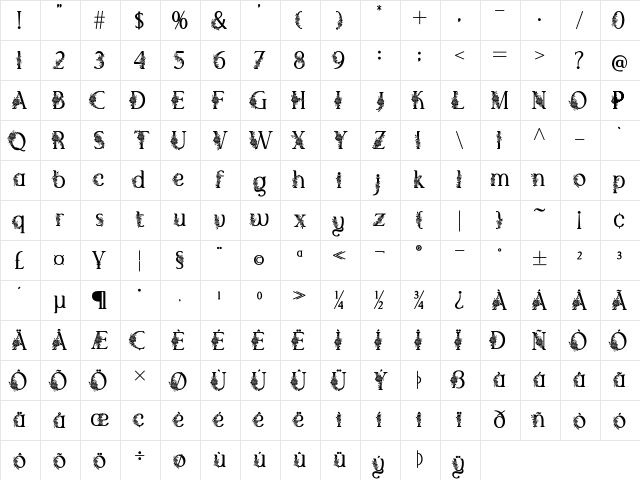
Complete El Katana Alt Flo Medium DEMO Regular glyph index. Displaying only characters natively supported by El Katana Alt Flo Medium DEMO Regular font.
El Katana Alt Flo Medium DEMO is a composed and adaptable typeface that performs quietly and consistently across a wide range of design contexts.
Who designed the El Katana Alt Flo Medium DEMO Regular font?
This font was published by Suandana Ipandemade. Check the technical specs section for copyright and designer details.